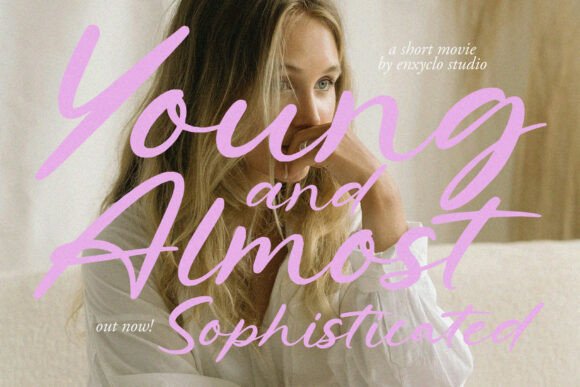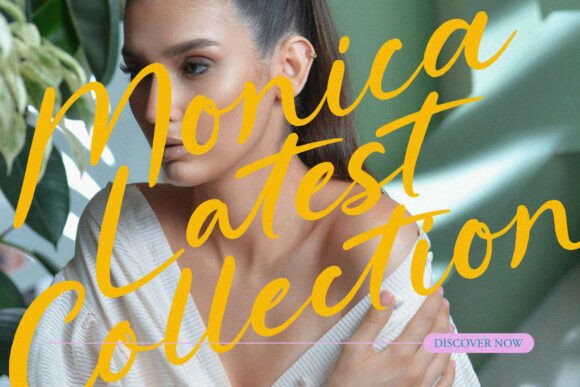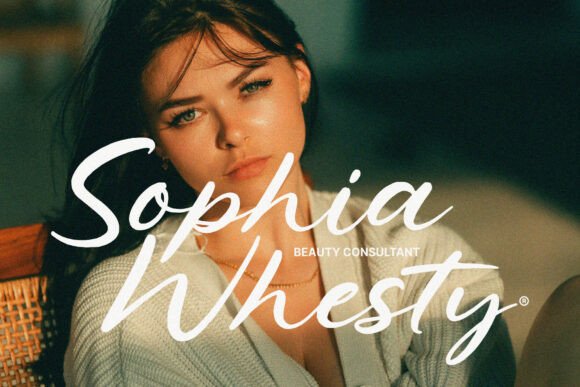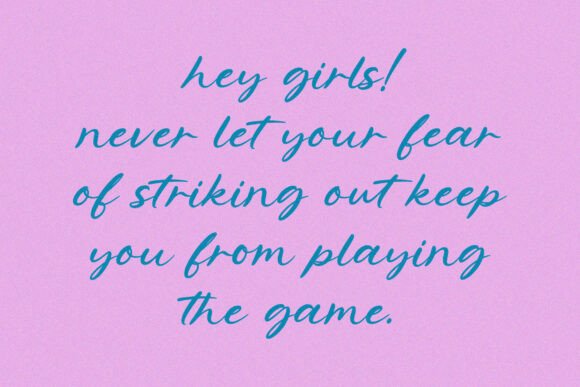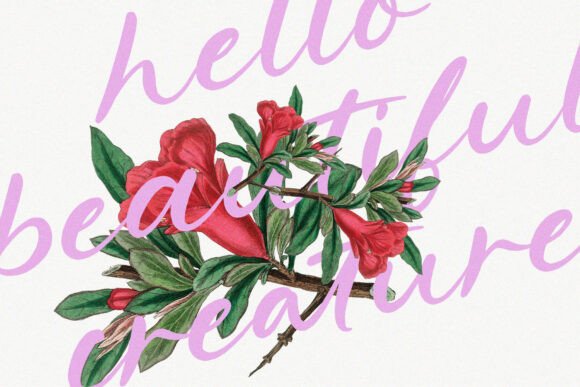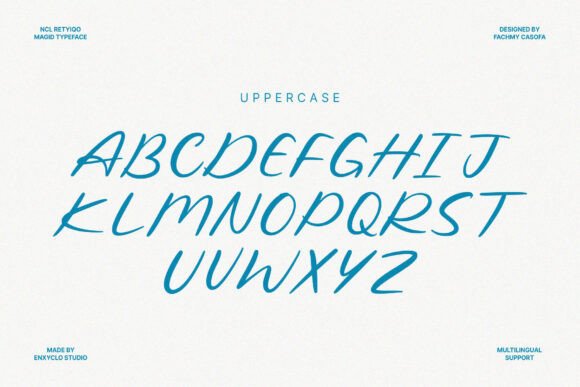
Introduction to Retyiqo Magid Font
Have you ever stared at a blank canvas, trying to conjure up the perfect design for your creative project? The blank page can be daunting, but with the right design resource, it can also be a blank slate waiting to be filled with beauty and creativity. For designers seeking a unique and authentic look, the Retyiqo Magid Font is an excellent choice. This effortlessly casual and artistically handwritten script font is designed to bring a touch of elegance and sophistication to your designs.
With its quick strokes and natural variations, the Retyiqo Magid Font avoids stiffness and feels entirely spontaneous, making it perfect for a wide range of creative projects. Whether you’re designing delicate wedding invitations, personal branding, or fashion photography watermarks, this high-quality font is sure to impress.
Key Features of Retyiqo Magid Font
- High-quality font design, perfect for creative projects that require a unique touch.
- Includes multiple font styles, including bold and italic, to cater to different design needs.
Honest Review: Retyiqo Magid Font
One of the things that stands out about this font is its unique aesthetic. It’s perfect for projects that require a bit of flair and sophistication. The font comes with a transparent background, which makes it easy to use and customize.
Here are some of the things that work well with the Retyiqo Magid Font:
- ✨ High-quality design: The font is well-designed and looks great on screen.
- ✨ Unique aesthetic: The font’s style is unlike anything I’ve seen before, making it perfect for projects that require a bit of creativity.
However, there are a few limitations to be aware of:
- ⚠️ Limited language support: The font may not support all languages, which could be a problem for designers who work with clients from diverse backgrounds.
- ⚠️ Limited character set: The font may not come with a comprehensive character set, which could limit its use in certain projects.
Overall, I’m impressed with the Retyiqo Magid Font. It’s a high-quality design resource that’s perfect for creative projects. While it may have some limitations, it’s definitely worth considering for your next design project.
Using in Creative Projects
Getting the Most Out of the Retyiqo Magid Font
To get the most out of the Retyiqo Magid Font, experiment with different font combinations and styles. You can also use it in conjunction with other design elements, such as images and graphics, to create a visually appealing design.
The Retyiqo Magid Font is commonly used in a variety of design projects, including logos, business cards, brochures, and website headers. Its unique style and high-quality design make it an ideal choice for creative professionals and designers.